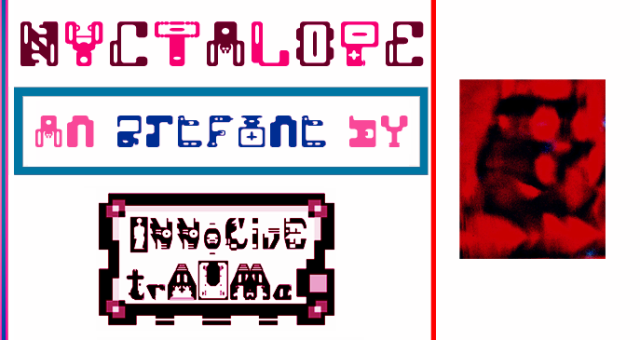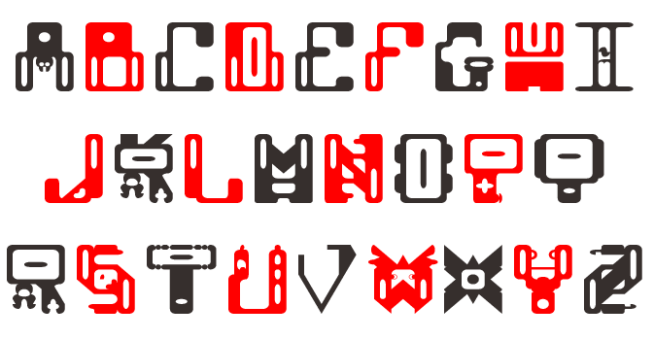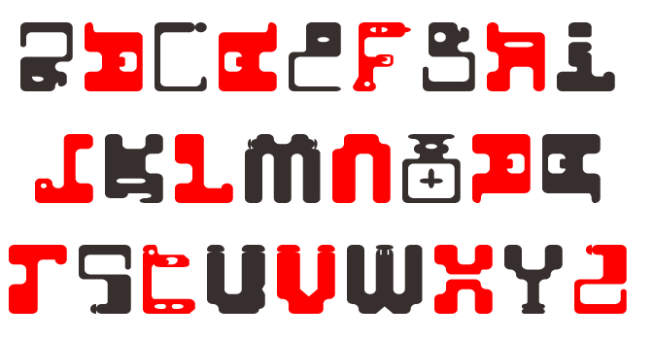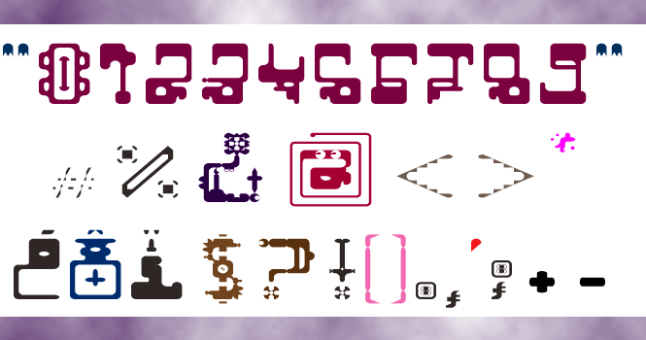
trAUMa 25 / Nyctalope
"Nyctalope", like all the "trAUMa" series, works at the frontier between Art & Type Design, Figuration & Abstraction, each font is a comprehensive world in which every glyph is a "living" entity. But put together they can produce your messages in the most accurate way.